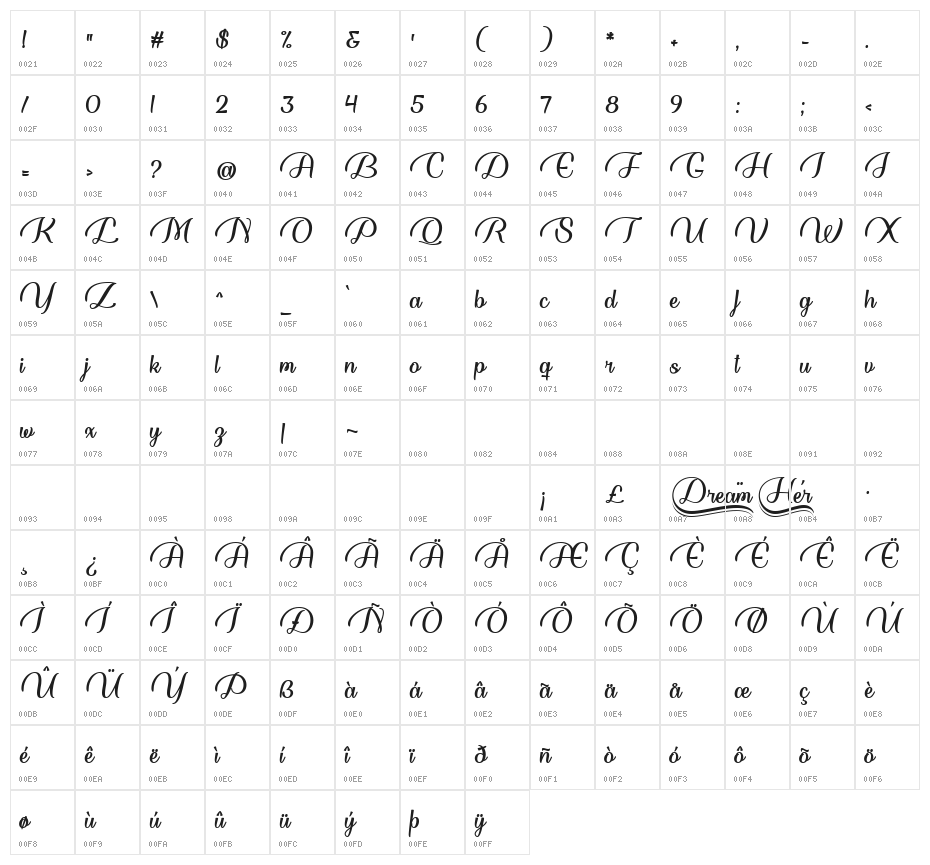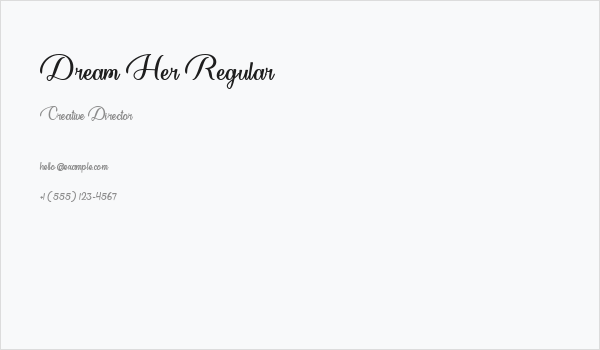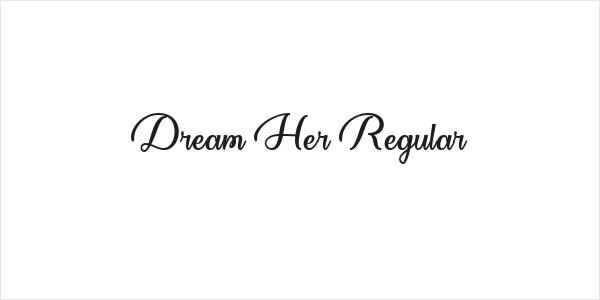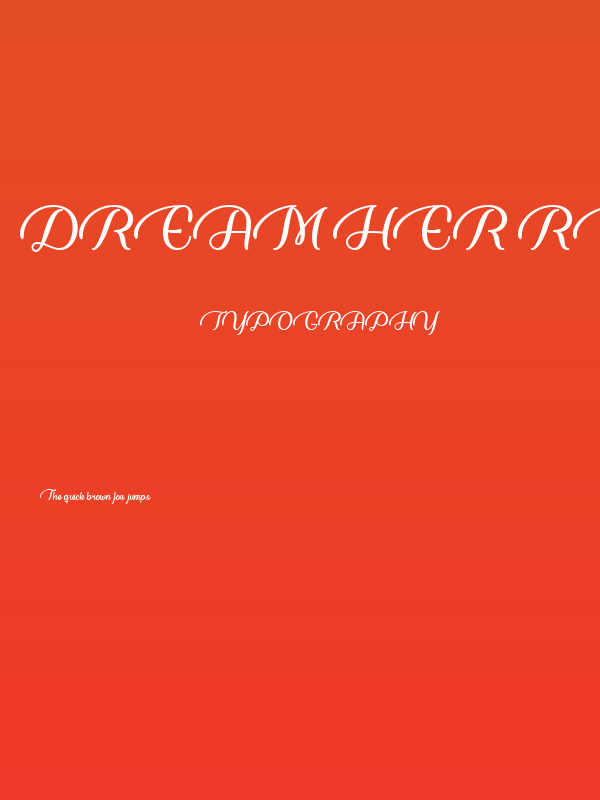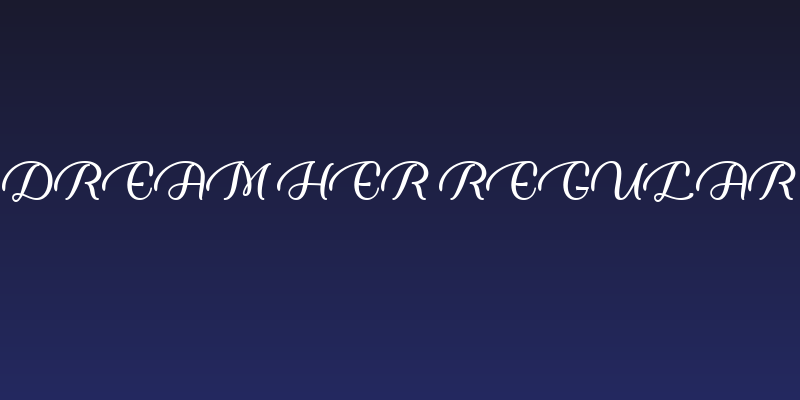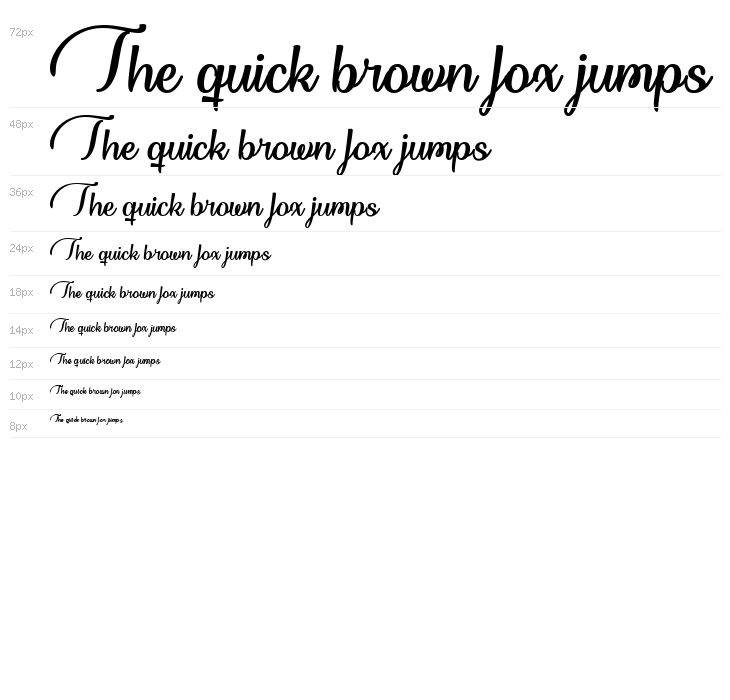
Dream Her Regular Font
Dream Her Regular Description
This font features an elegant and flowing script style, characterized by its smooth, cursive letterforms that exude a sense of sophistication and grace. The uppercase letters are particularly ornate, with sweeping curves and delicate loops, while the lowercase letters maintain a consistent rhythm and fluidity. The numerals are clear and stylish, complementing the overall aesthetic. Special characters are thoughtfully designed, adding to the font's versatility. The font's design is both modern and timeless, making it suitable for a variety of applications.
| Overall Style | Elegant, Modern |
| Use Case | Headlines, Invitations, Branding |
| Proposed Projects | Ideal for wedding invitations, elegant branding, greeting cards, and decorative headlines. |